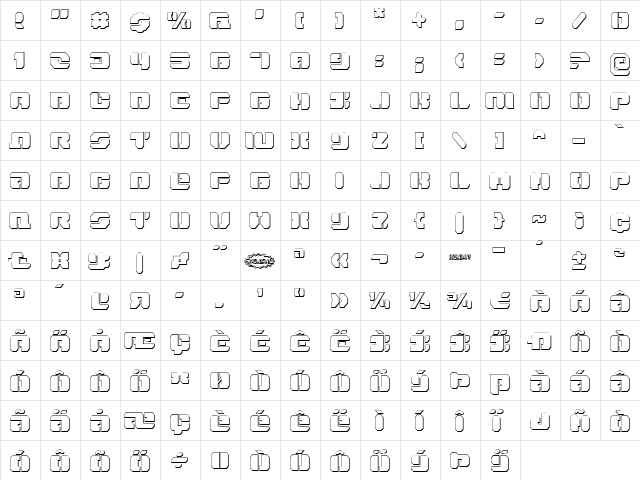
Dan Stargate Outline Regular
Design Context for Dan Stargate Outline Typeface
Dan Stargate Outline is built around its visual character rather than neutral utility — its distinctive forms are designed to make an impression at display sizes.
Font Pairing: Pair with a clean neutral sans-serif for body copy to let Dan Stargate Outline's character lead without overwhelming the composition.
Pro Tip: Treat Dan Stargate Outline as the centrepiece of your typographic hierarchy. One strong heading set in a decorative face can carry an entire layout.